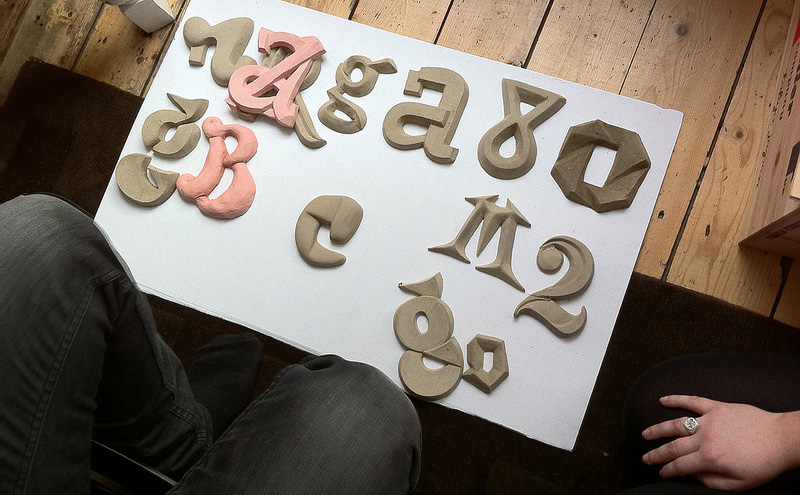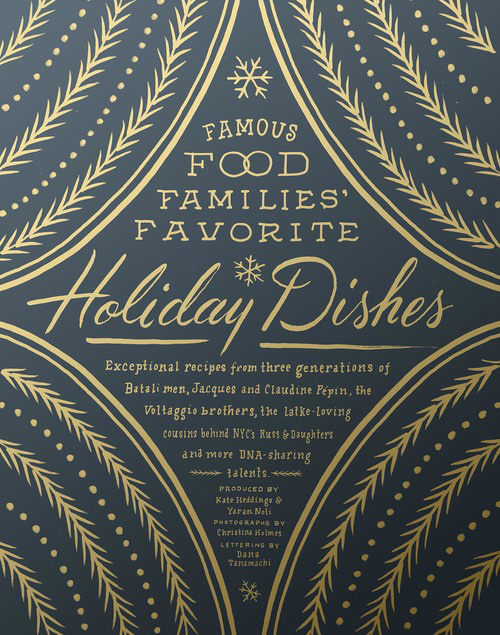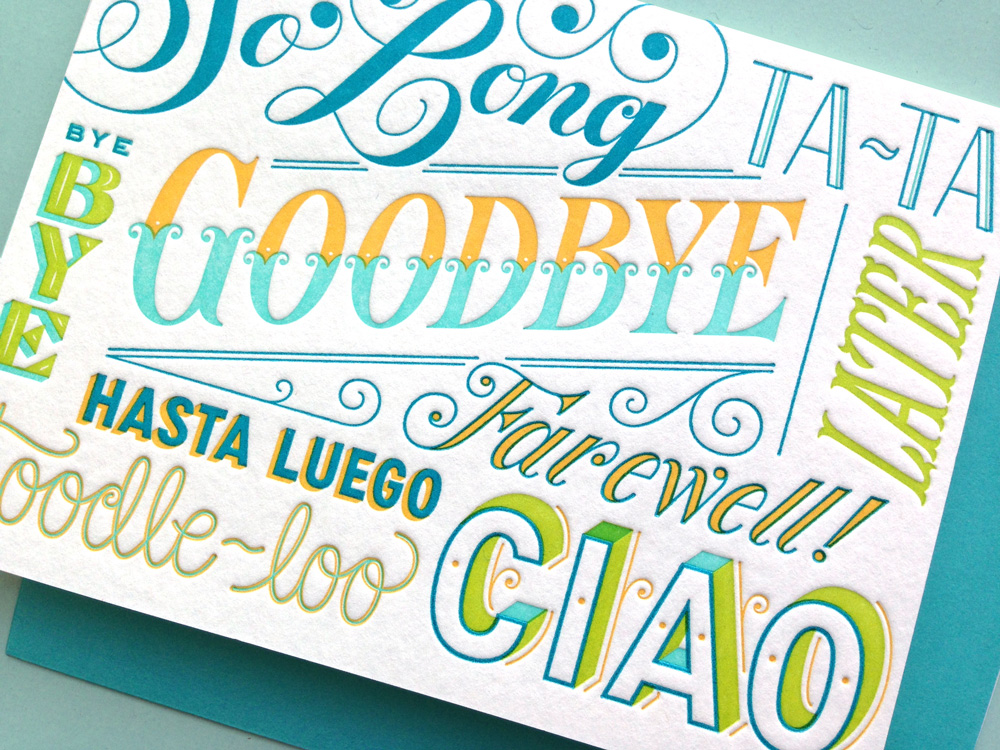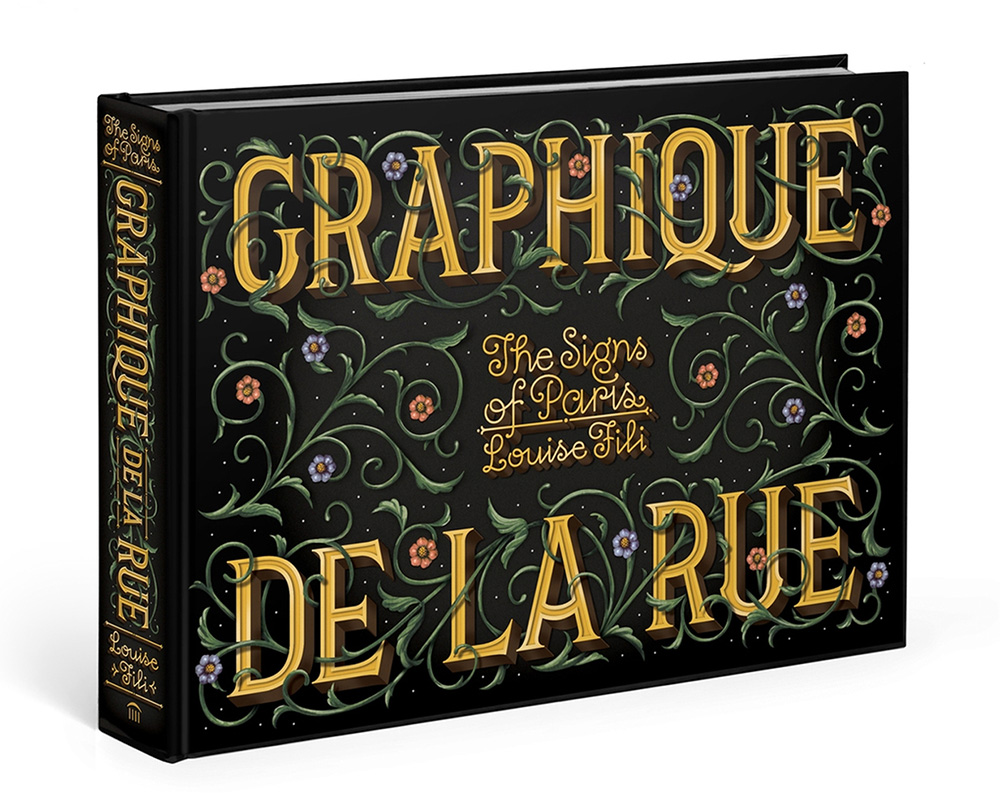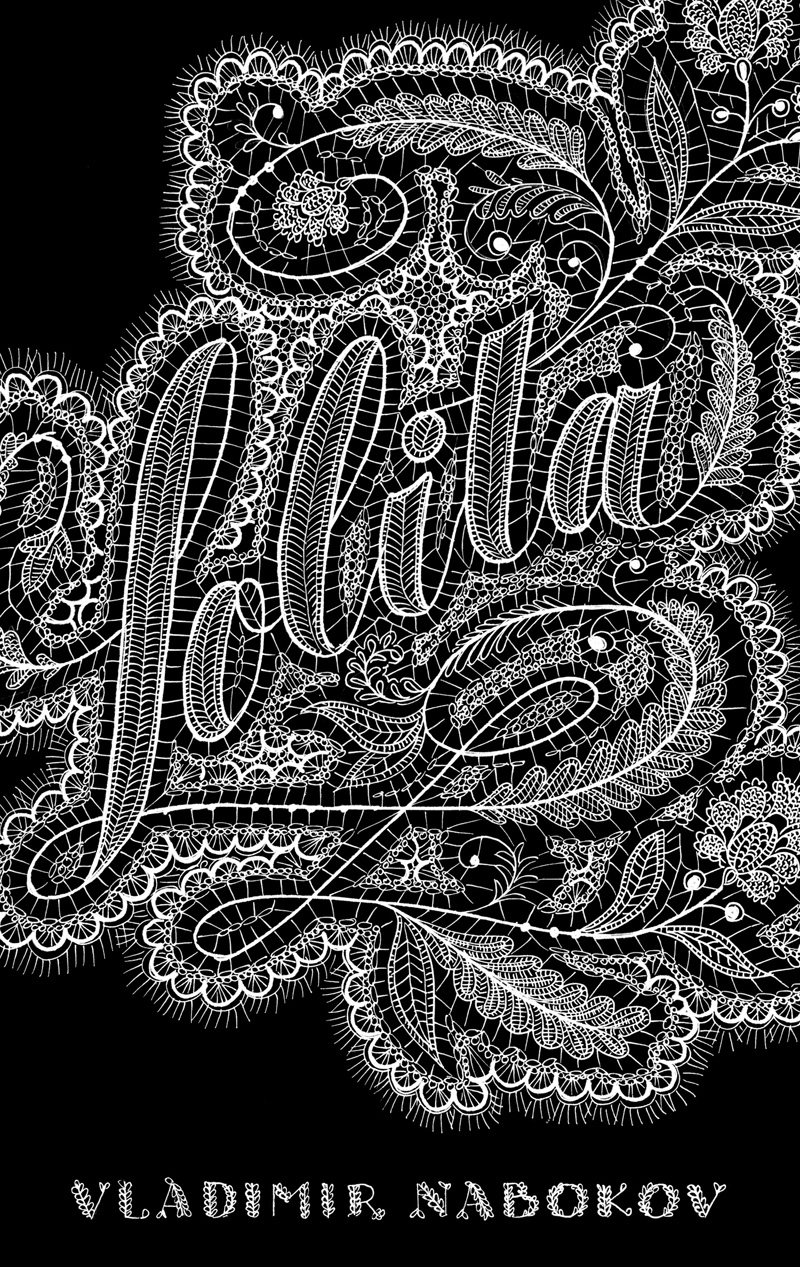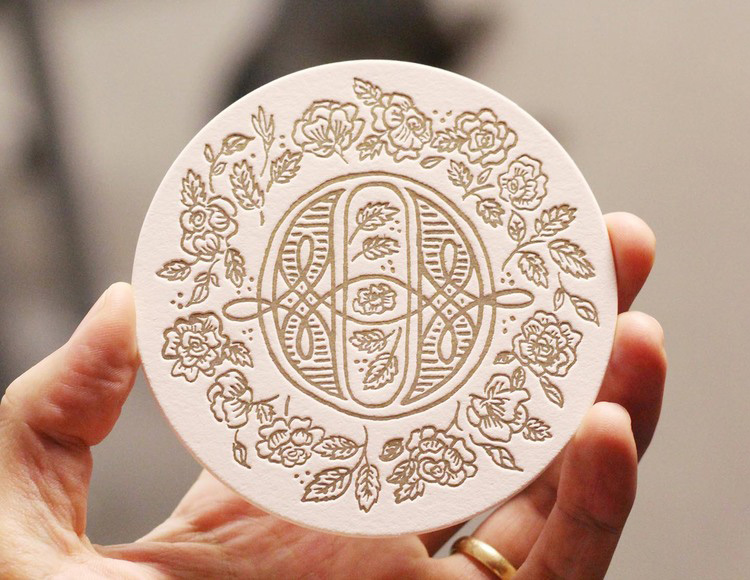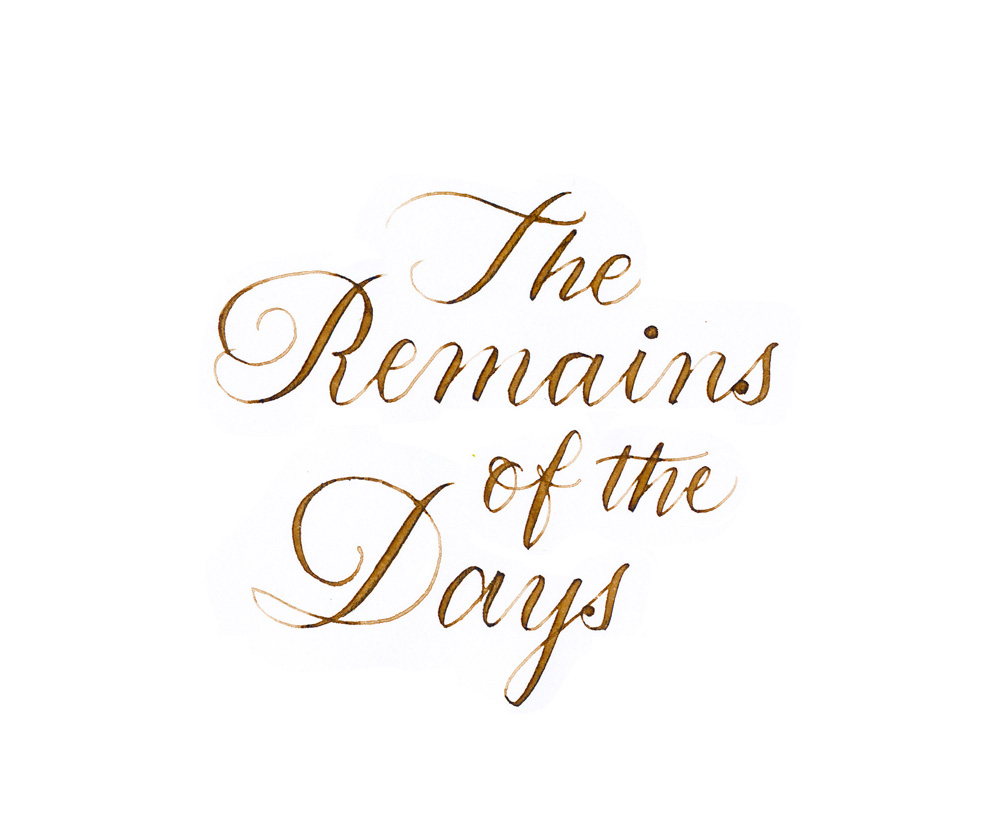
Five typographers to celebrate International Women’s Day
International Women’s Day is a worldwide event that celebrates women’s achievements – from the political to the social – while calling for gender equality. It has been observed since the early 1900s and is now recognised each year on March 8. To celebrate the event we feature five exceptional professionals that inspire and prove that typography and graphic design in not a male dominated realm. Although it’s undeniable that only very few women are visible in type design, TYPEROOM is committed to contribute to the visibility of female type and graphic designers that as pushing the envelope forward for others to follow. Typography is a handcraft for the people with talent and gender-specific socialization is a thing of the past. These girls do run the world of typography.
Louise Fili
Recognized for impeccable craftsmanship, elegant use of typography and designing with a passion and focus that is the envy of every designer, Louise Fili designs with unmatched grace and elegant craftsmanship, unifying old and new to create contemporary forms in typography. Fili, who grew up in an Italian-American household in New Jersey, remembers carving letterforms into the wall above her bed at age three or four. In high school, she taught herself calligraphy with a Speedball guide and an Osmiroid pen. She enrolled at Skidmore College to study studio art, but discovered graphic design instead. Presciently, her senior project was a hand-lettered Italian cookbook.
In the 1970s, Fili left Skidmore for New York City and completed her final semester at the School of Visual Arts (now SVA). At 25, she was hired as a senior designer by Herb Lubalin, if only because, as Fili modestly remembers it, “someone had been given notice on the day I happened to walk in the door.” Steven Heller, design historian, writer and Fili’s now-husband and collaborator, says, “I noticed Louise’s work long before we met. In fact, it was the work that prompted me to write her, and later meet her. What I saw in the work was a distinctive flair. It had bits of the past, but entirely reinterpreted.… More important, in a sea of book jackets and covers…her designs stood out for their precision, humanity and aesthetic joy.”When Fili opened her own studio in 1989 she was an exceptional exception. Back then there weren’t many female-run studios then, and she knew it could be problematic if she named the studio after herself. But she decided to send a clear message: “If you have a problem with my being female, then I don’t want you as a client.”
Jessica Hische
“Here’s a brief history of who I am, what I do, and why we should be friends: I grew up in Pennsylvania, raised by two non-creatives that decided it would be OK to let their little girl pursue a seemingly impractical career” writes Hische on her website.
“In 2006, I graduated and landed a job as a freelance designer for a little studio in Philadelphia where I helped design fancy books and re-affirmed my passion for illustration and image-making. By winter, unsure if they wanted to take on another full-time employee, my hours were cut and I put together an illustration promo to get freelance work. That promo ended up landing me an illustration rep and a job for one of my heroes; I migrated to Brooklyn to work for her. After two and a half years of very little sleep and a lot of lettering, freelance work began overwhelming my life and my desire to do side projects became too much to bear. I ventured out on my own and embarked on a little project that would end up changing my career and earning me the moniker “That Drop Cap Girl”. I’ve been on my own as a letterer, illustrator, type designer, and relentless procrastiworker since 2009 and have worked for (and continue to work for) a lot of wonderful clients like Wes Anderson and Penguin Books. I’ve shared studios with amazing people including the folks over at Studiomates and of course my beloved Pencil Factory, where I continue to spend time on return trips to Brooklyn. I split my days (not evenly enough) between Brooklyn and San Francisco—the place I now call home” she adds.
“When I’m not manipulating beziers or working on fun projects, you can find me at the airport en route to a speaking engagement. I love what I do for a living and try as hard as I can to help others find a way to do what they love.” We love what she does for a living.
Maria Doreuli
Her passion for drawing as well as collecting printed ephemera was her excuse to study graphic design at the Moscow State University of Printing “which is where I earned a Masters Degree” writes a woman who fell in love with the Type Design Workshop. “At the workshop I worked on my graduation project, William Typeface, under the head of Alexander Tarbeev, whose influence encouraged me to pursue my love for letters. As a result William received Letter.2, Granshan and NewCyrillic awards.” By 2011 Doreuli was the ‘Young designer of the year’ by Akzia newspaper in 2011.
A female that settles for nothing, Doreuli moved to the Hague to study on the TypeMedia course at The Royal Academy of Art (KABK). “My goal now is to find the way to combine my drawing skills and my knowledge of programming into my design process and see how that affects the end result. Although my final project at Type and Media is not focused on Cyrillics, I enjoy the process of designing Cyrillic. During my time in The Hague, I had many discussions with my colleague Krista Radoeva about the peculiar differences between Russian and Bulgarian Cyrillics, which lead to further investigation of this topic. This inspired me to do research and collect materials on the history of the Cyrillic script and I hope that in the future my work will be able to improve the look of contemporary Cyrillic typography.”
Since 2013 she has been back to Russia, as part of the all-female designer collective Contrast Foundry, situated in Moscow, The Hague and London with Katerina Kochkina and Liza Rasskazova, while also teaching typography, lettering and type design. When it comes to her fashion choice—it is all about Scandinavian simplicity. When it comes to her typographic style she is entering the wilderness.
Dana Tanamachi
It all started back in 2009 when Tanamachi’s impromptu chalk installation for a Brooklyn housewarming party landed her first commission for Google and set the popular chalk-lettering trend—and her career—in motion. Ever since this stunning lettering artist and designer who enjoys living a quiet life and working with her hands is making a name on her own. After working under design icon Louise Fili, she opened Tanamachi Studio, a boutique design studio specializing in custom typography and illustration for editorial, lifestyle, food, and fashion brands. Named a Young Gun (YG9) by the Art Director’s Club in 2011 Dana Tamanachi relocated from Brooklyn to Seattle over a year ago where she debuted Tanamachi Goods, a line of beautifully hand-drawn print and gift products reflecting her personal aesthetic and featuring mediums beyond chalk.
Ruxanda Duru
“Hello! I’m a graphic designer living in Barcelona, currently designing book covers at Penguin Random House” writes the woman who managed the impossible. Duru is the woman who is making exceptional covers yet, she is the force behind Type Foundries Today. A precious project that aims to contribute to existing information about the state of the digital type industry by presenting a deeper, more factual examination. Ruxandra Duru combines historical events with a 2013 census and in‑depth analysis of contemporary foundries, offering insight into the sometimes obscure world of typeface drawing and font making and we will be thankful to her for that 24/7.
FYI, International Women’s Day was just an excuse to remind us that women and typography is a match made in heaven.